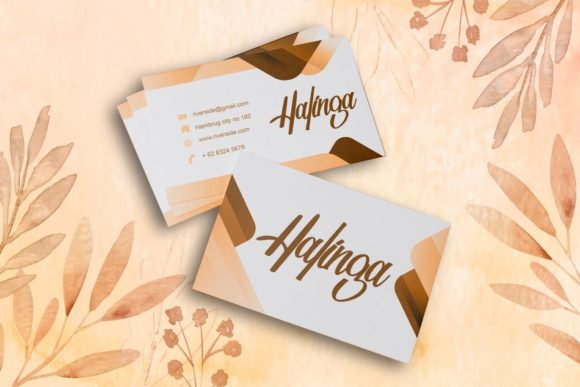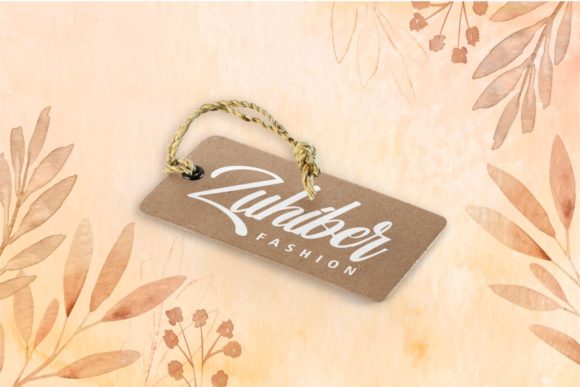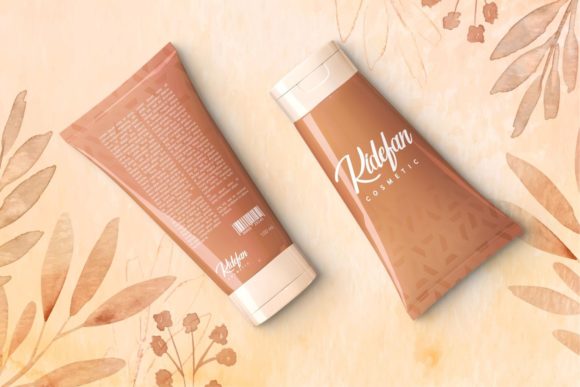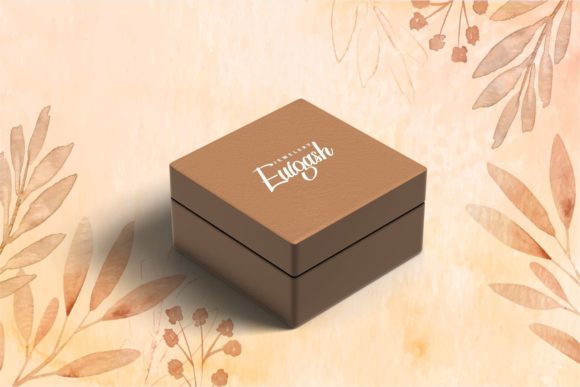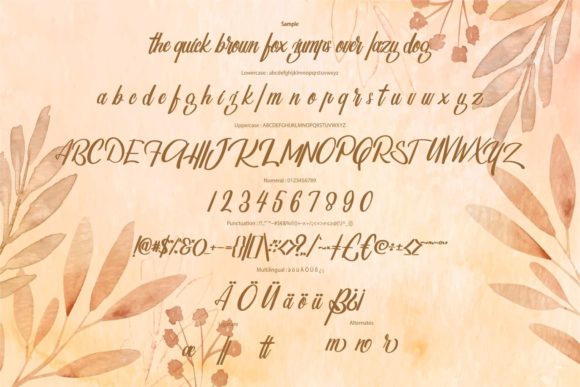
Discover the Elegance of Adriyan Font: A Lovely and Delicate Script Font
In the world of typography, fonts play a crucial role in conveying the tone and personality of a design. For designers and crafters looking to add a touch of elegance and class to their projects, Adriyan Font is an excellent choice. This lovely and delicate script font is specifically crafted to provide a beautiful and refreshing look to your designs.
What Makes Adriyan Font Special?
Adriyan Font is a unique and exquisite script font that stands out from the rest due to its distinctive characteristics. Its delicate strokes, elegant curves, and refined lines make it perfect for designs that require a touch of sophistication. Whether you’re working on a branding project, wedding invitation, or a packaging design, Adriyan Font is sure to impress.
Key Features of Adriyan Font
- Elegant and Refined Design: Adriyan Font boasts a beautiful, hand-crafted design that exudes elegance and refinement.
- Delicate Strokes: The font features delicate strokes that add a touch of sophistication to your designs.
- Script Style: Adriyan Font is a script font that is perfect for designs that require a personal and elegant touch.
- Easy to Read: Despite its delicate nature, Adriyan Font is easy to read, making it perfect for body text and headings.
- Multilingual Support: The font supports multiple languages, making it a great choice for designers working on international projects.
Use Cases for Adriyan Font
Adriyan Font is a versatile font that can be used in a variety of design projects, including:
- Wedding Invitations: Add a touch of elegance and romance to your wedding invitations with Adriyan Font.
- Branding and Packaging: Use Adriyan Font to create a sophisticated brand identity that stands out from the competition.
- Stationery and Greeting Cards: Add a personal touch to your stationery and greeting cards with Adriyan Font.
- Web Design: Use Adriyan Font to create a beautiful and elegant website that showcases your brand’s personality.
Tips for Using Adriyan Font Effectively
To get the most out of Adriyan Font, here are some tips to keep in mind:
- Pair with a Sans-Serif Font: Pair Adriyan Font with a sans-serif font to create a beautiful contrast that adds visual interest to your design.
- Use it for Headings: Use Adriyan Font for headings and titles to add a touch of elegance to your design.
- Experiment with Colors: Experiment with different colors to find the perfect combination that complements Adriyan Font.
In conclusion, Adriyan Font is a lovely and delicate script font that is perfect for designers and crafters looking to add a touch of elegance and class to their designs. With its unique features, versatility, and ease of use, Adriyan Font is an excellent choice for a wide range of design projects. Whether you’re working on a wedding invitation, branding project, or web design, Adriyan Font is sure to impress.